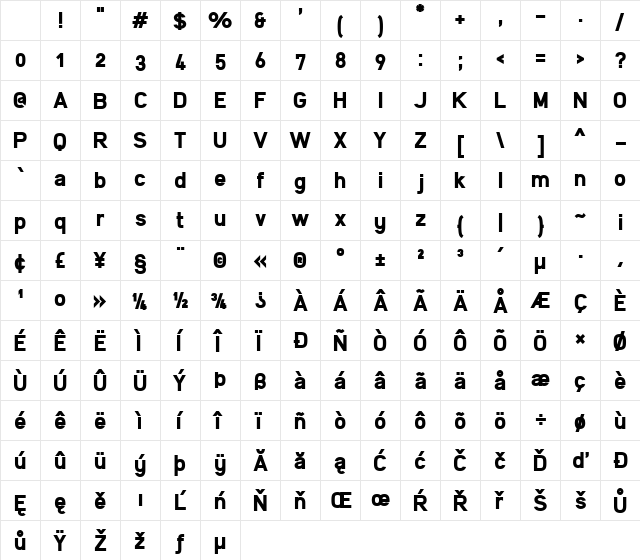
Complete Filetto Bold glyph index. Displaying only characters natively supported by Filetto Bold font.
Filetto is a composed and adaptable typeface that performs quietly and consistently across a wide range of design contexts. Its bold stroke weight gives it real presence on the page.
Who designed the Filetto Bold font?